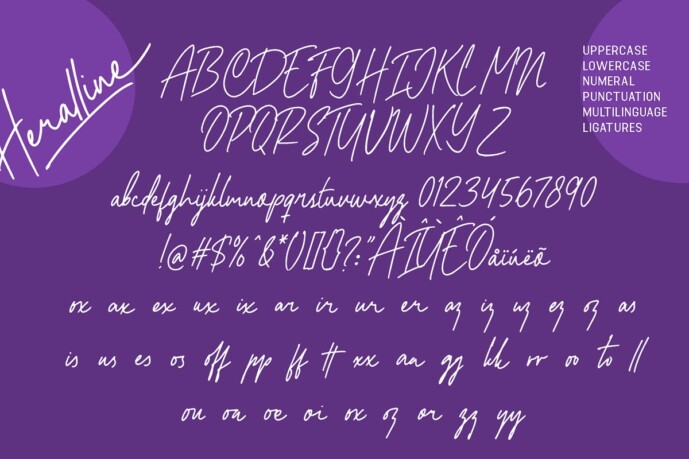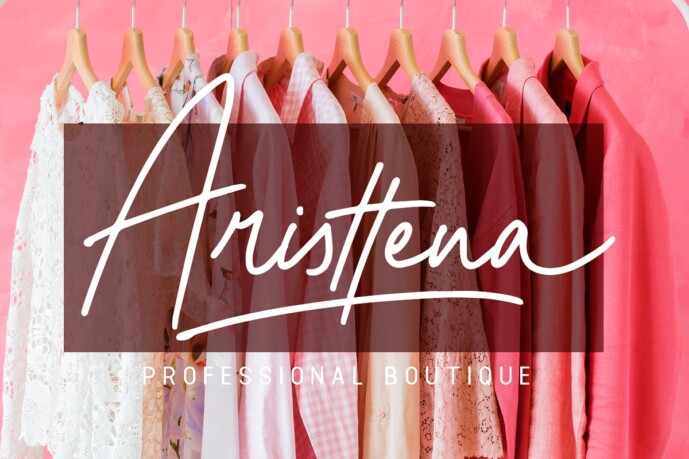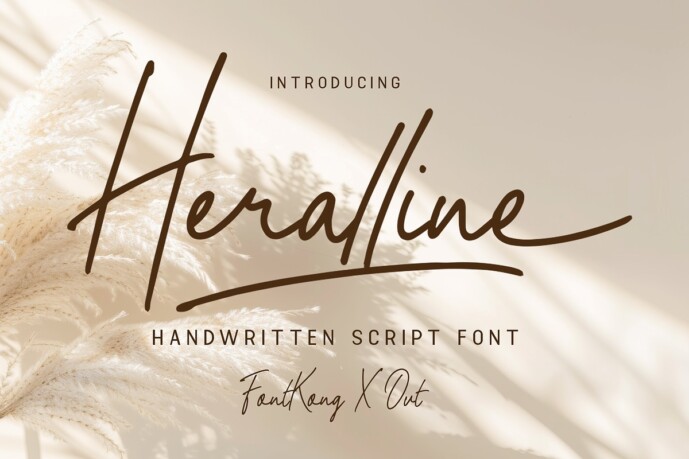
Heralline Font
Heralline Font is an elegant handwritten script font that adds a personal and artistic touch to any design. Its smooth, flowing strokes and delicate curves make it perfect for wedding invitations, branding projects, logo designs, greeting cards, and social media posts. Whether you’re aiming for romantic, stylish, or minimal aesthetics, Heralline brings a graceful charm to your creative work.
Designed for readability and visual appeal, Heralline captures the essence of modern handwriting with natural, fluid lines. This versatile font adapts beautifully to both display and text elements, enhancing your message with sophistication and personality. Ideal for crafters, designers, and anyone looking to elevate their project with a personal touch.
Make your designs stand out with Heralline. It’s the perfect font to convey emotion and style, helping you create an impression that lasts. Let Heralline become the voice of your next creative masterpiece!